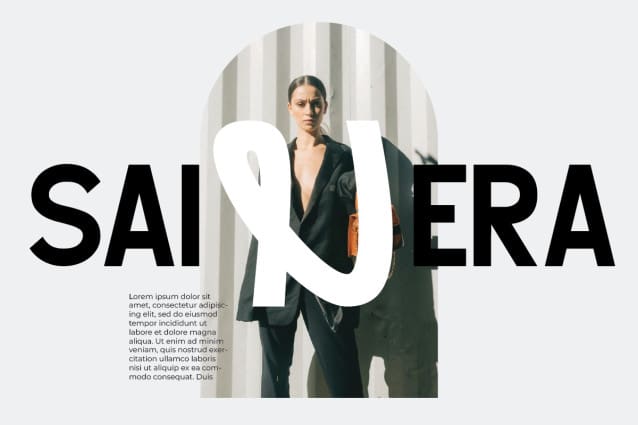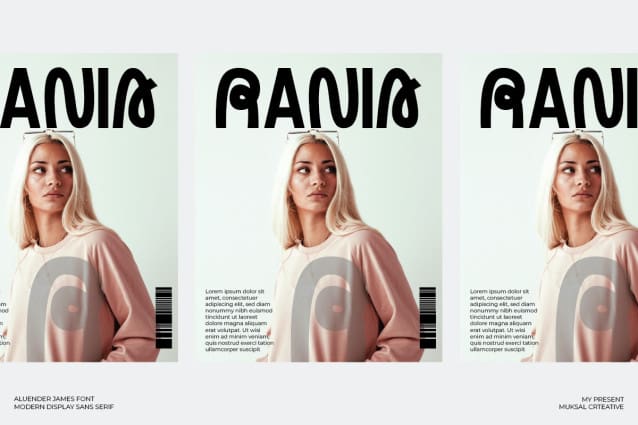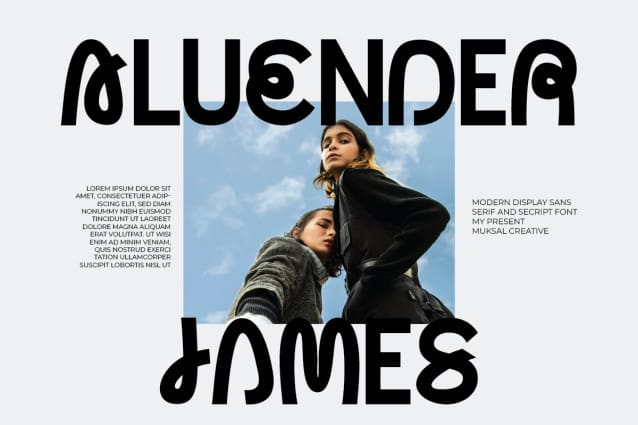
Aluender James Font
Aluender James Font is a font that blends modern sans serif style with elegant script elements. This font is designed to provide maximum versatility in design, allowing users to combine the clean and professional elements of sans serif with the dynamic and characterful details of script. This unique combination makes Aluender James ideal for various design projects, from branding, posters, and invitations to social media and web design.
The sans serif style of Aluender James offers a modern and minimalist appearance, while the script alternate provides a personal and creative touch. Each letter is meticulously crafted to ensure optimal readability without sacrificing aesthetics. With Aluender James, designers have a versatile tool to create standout and eye-catching works. Whether working on formal or casual projects, this font delivers the right professional touch with the creative flexibility needed to produce unique and captivating designs.